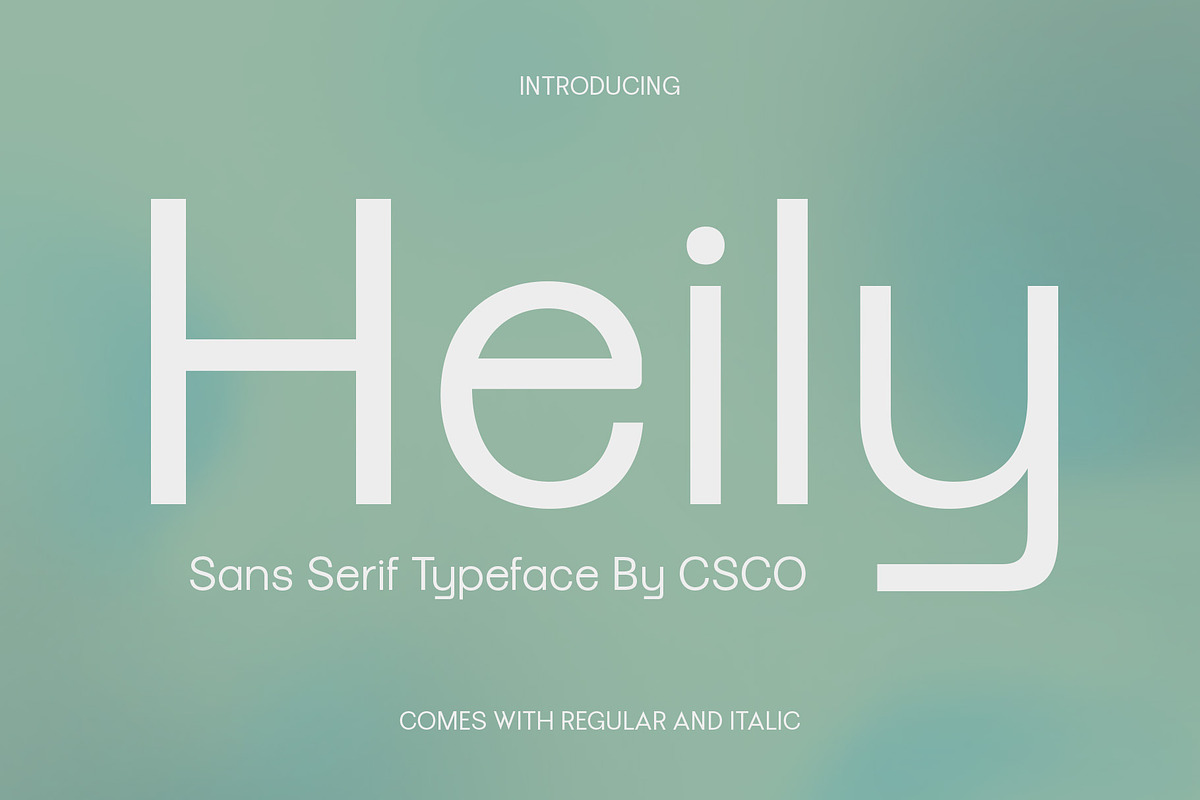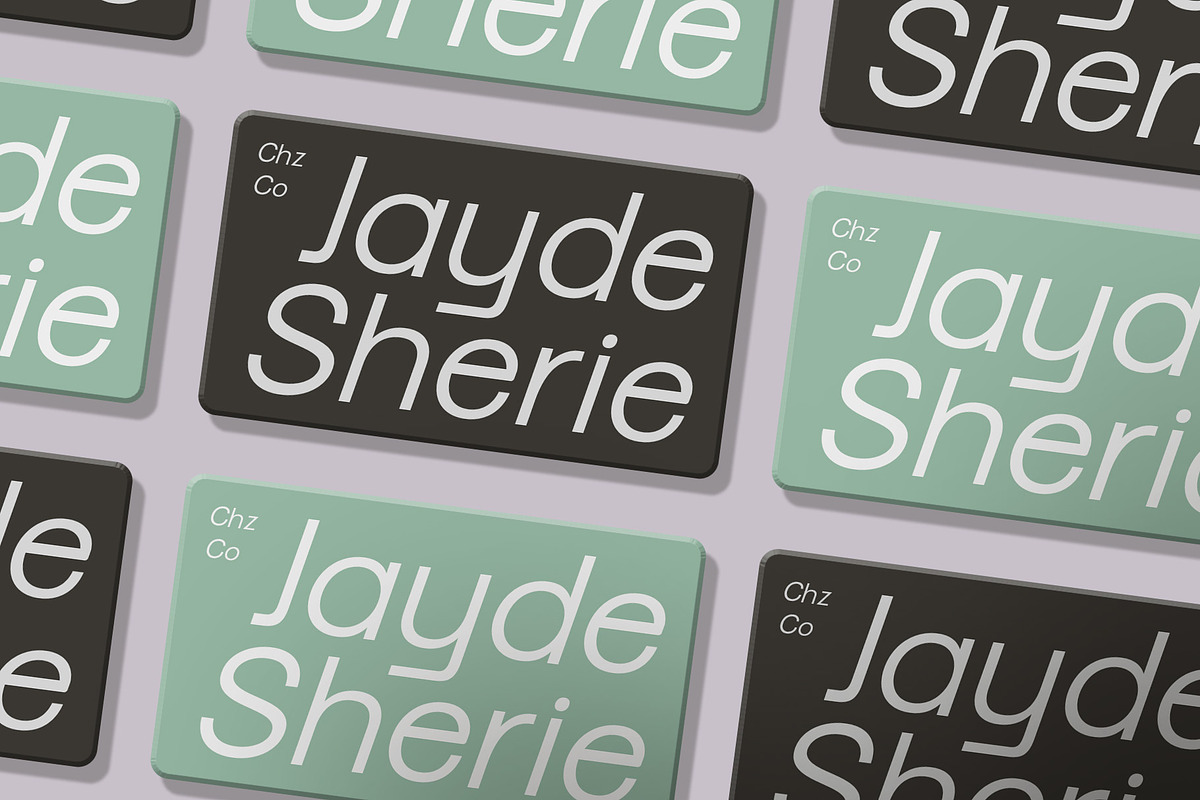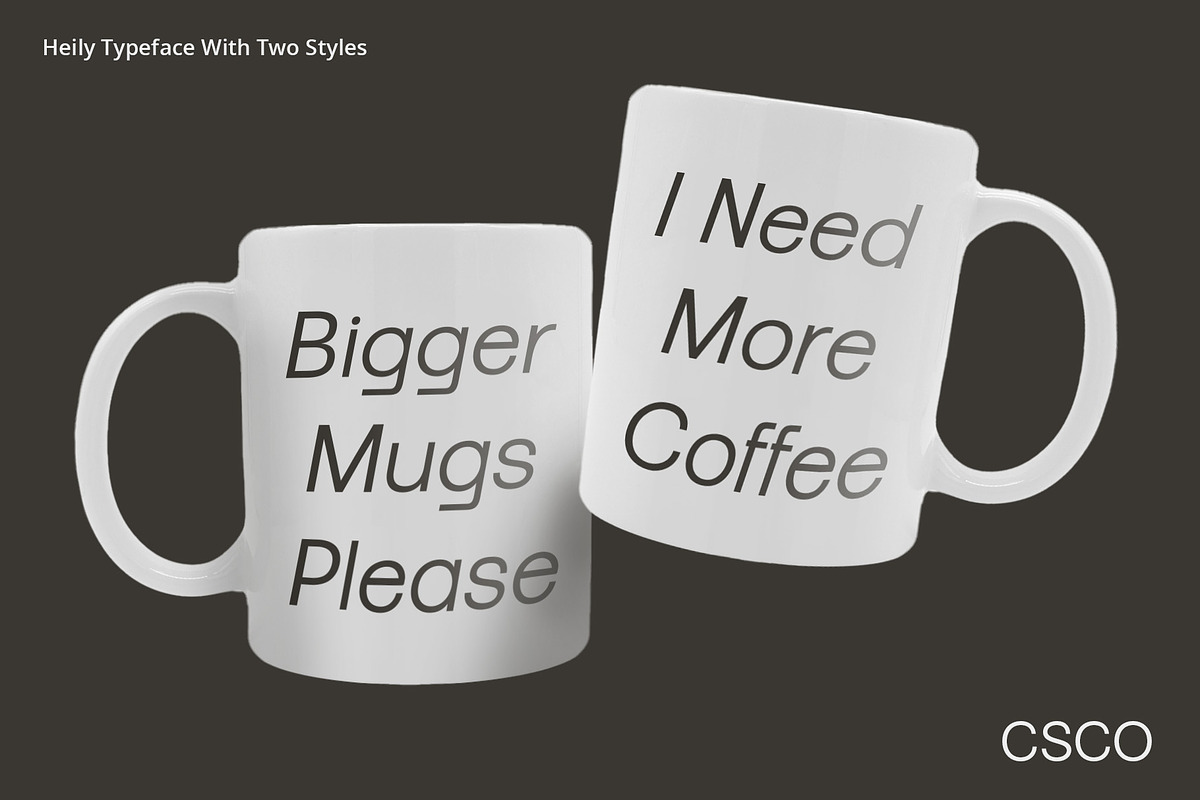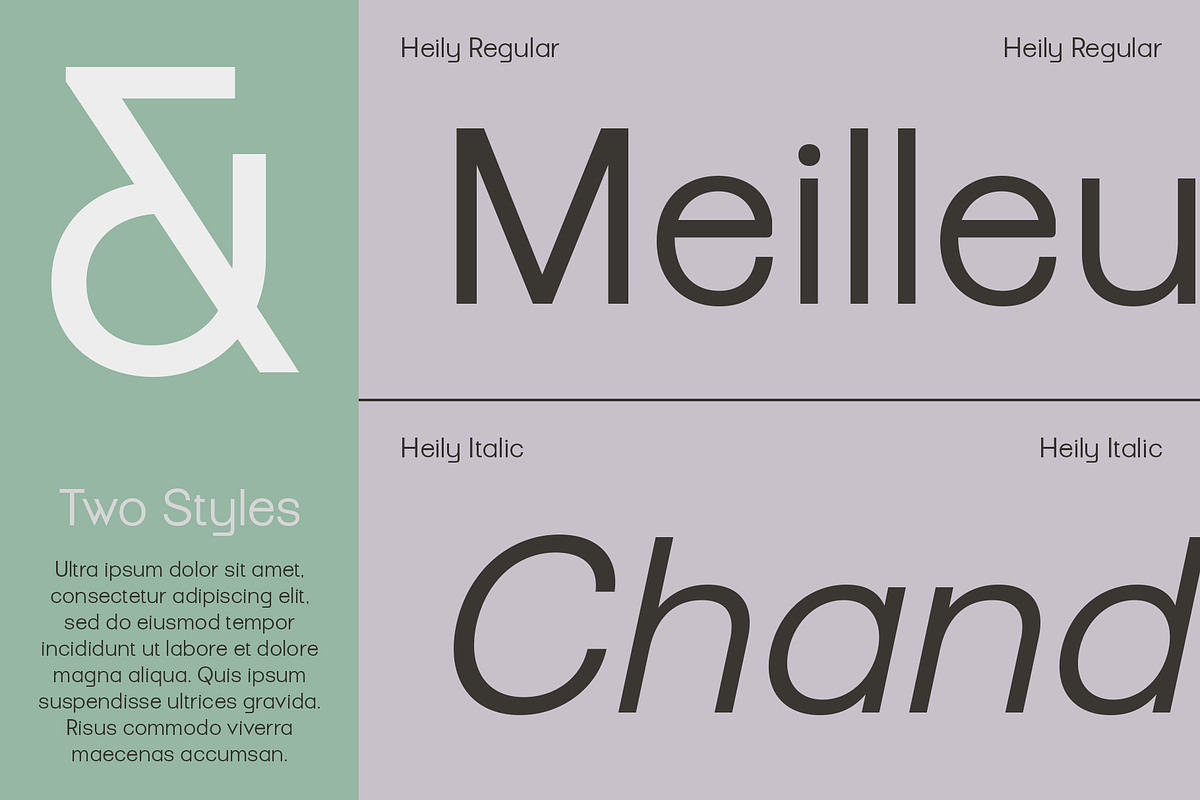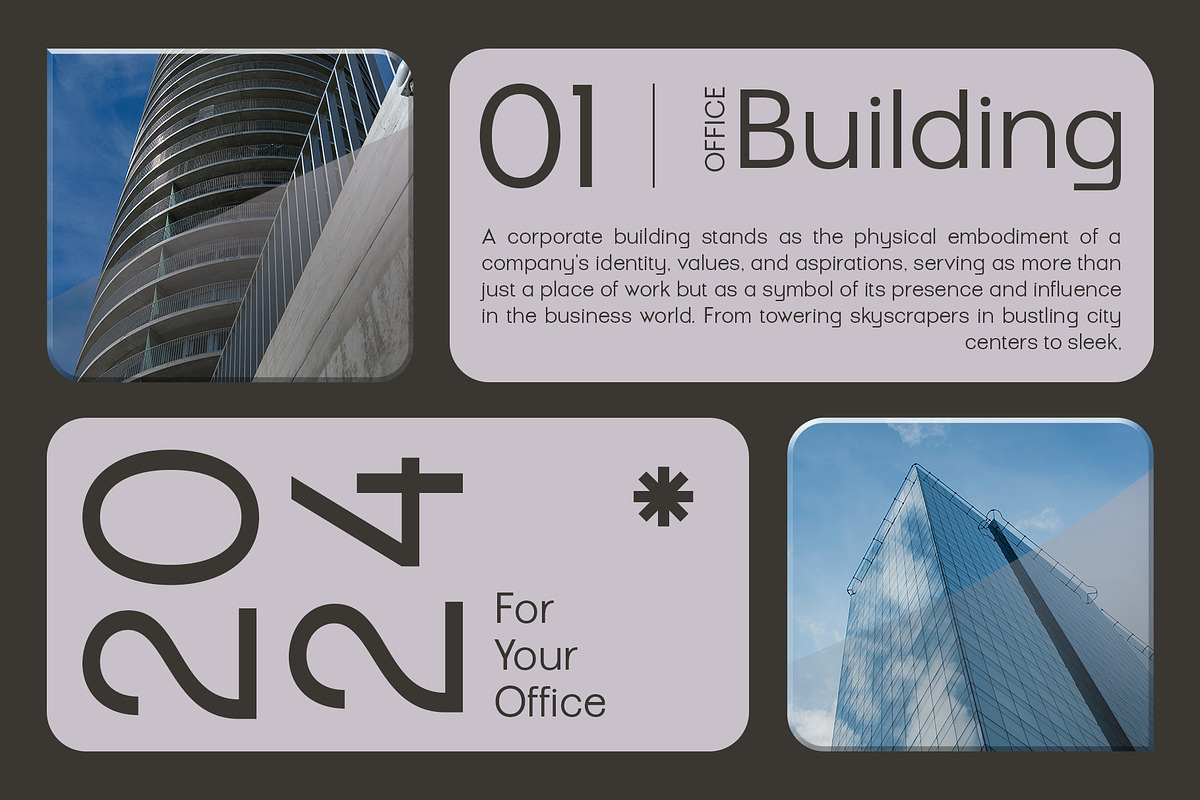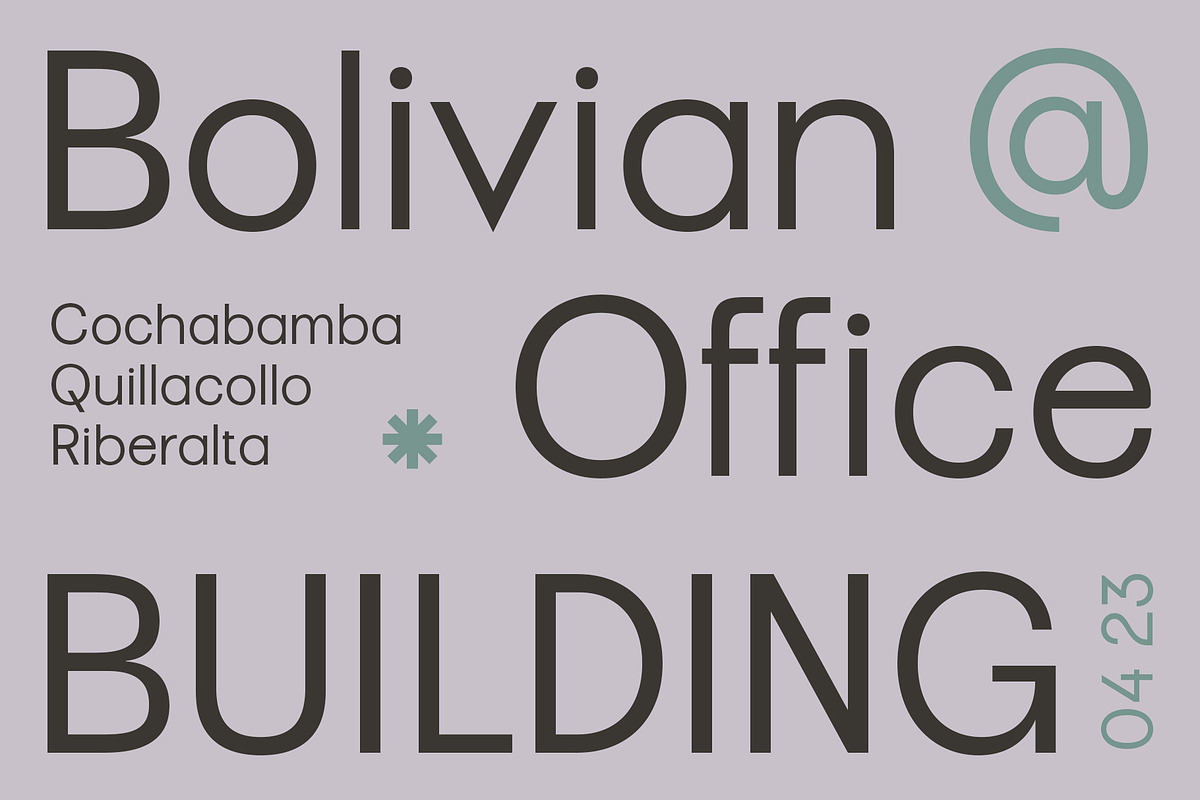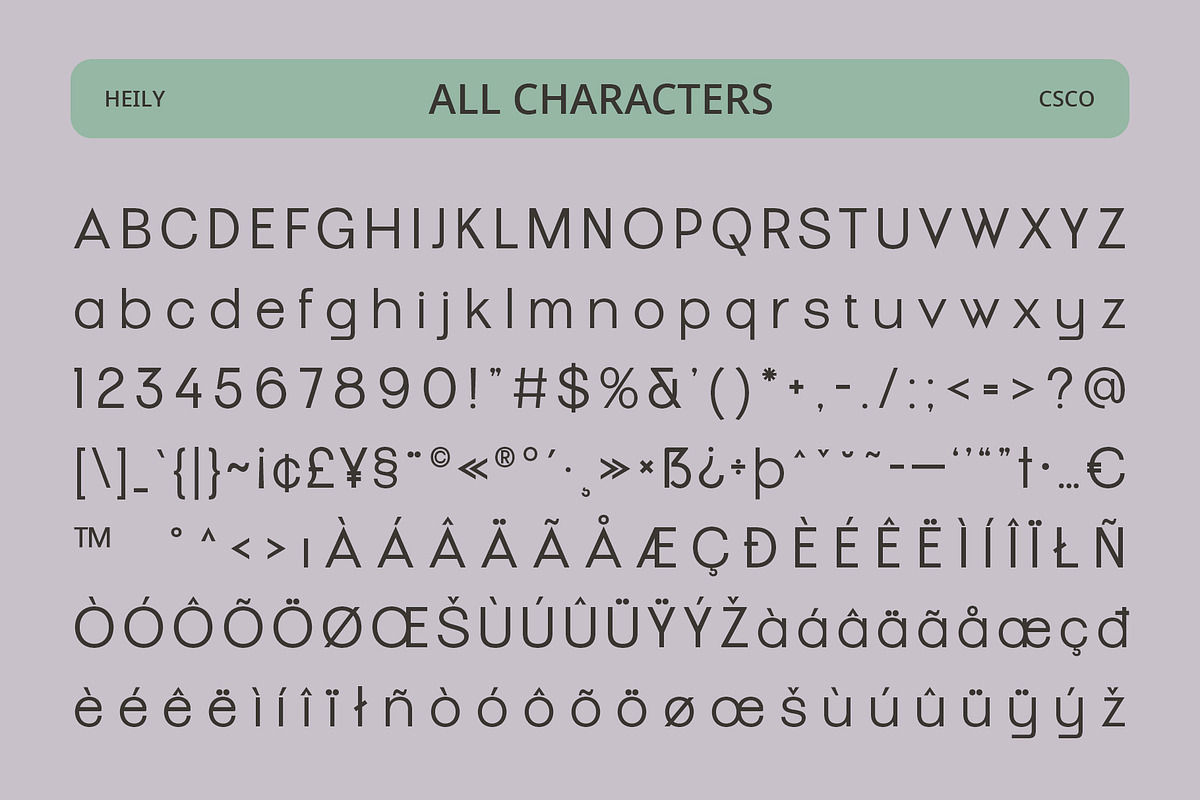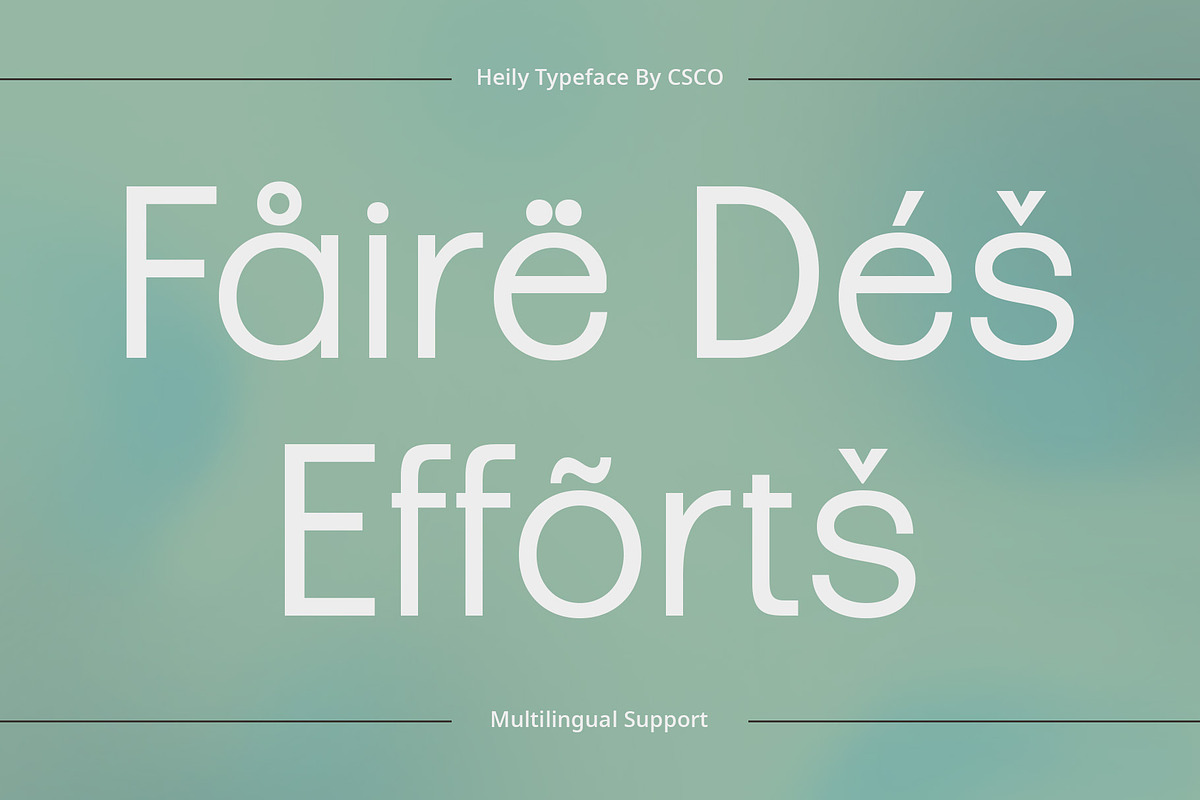
Heily – Grotesque Sans Serif
Heily: Modern Grotesque Sans Serif with Swiss Design Influence
Swiss Design Inspiration Heily draws inspiration from the iconic Sans Serif Swiss design movement, known for its minimalism and clarity. The font embodies the principles of simplicity and functionality that define this influential design style.
Grotesque Aesthetics This font features the distinctive characteristics of grotesque typefaces, with its uniform stroke widths and minimal ornamentation. This gives the font a modern and versatile appearance suitable for various design applications.
Clean and Legible The clean lines and straightforward shapes of This font ensure excellent legibility, even at smaller sizes. Its balanced proportions and clear letterforms make it an ideal choice for both digital and print media.
Versatile Design Solution This font offers a versatile design solution for a wide range of projects, from branding and advertising to editorial and web design. Its modern grotesque style and Swiss design influence make it a timeless choice for contemporary design needs.
Modern Grotesque for Contemporary Design This is a modern grotesque font inspired by Swiss design principles. With its clean and legible appearance, it offers versatility and functionality across various design projects, making it a valuable asset for designers seeking a sleek and contemporary typographic solution.
- Heily Regular
- Heily Italic